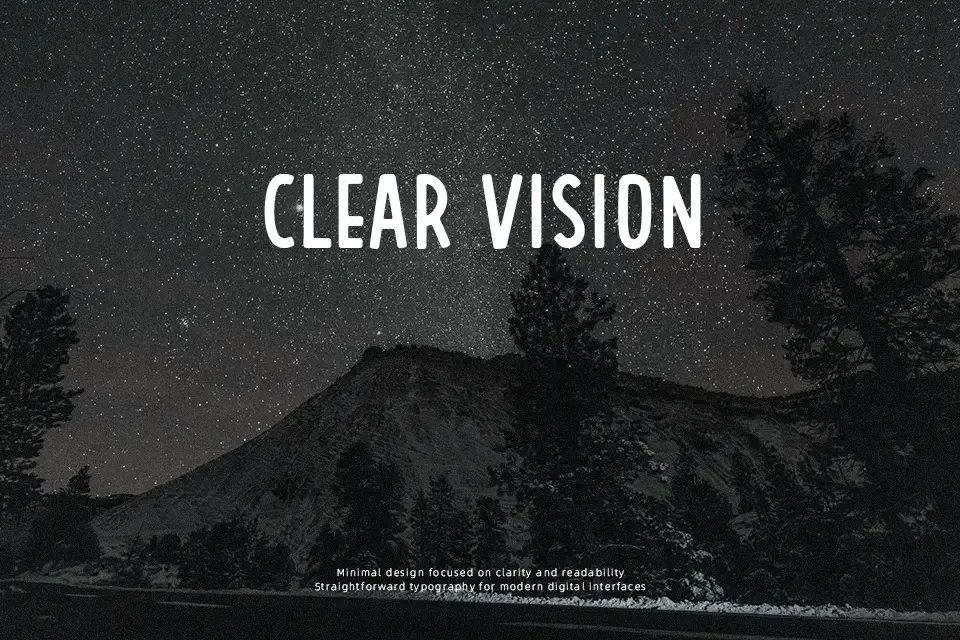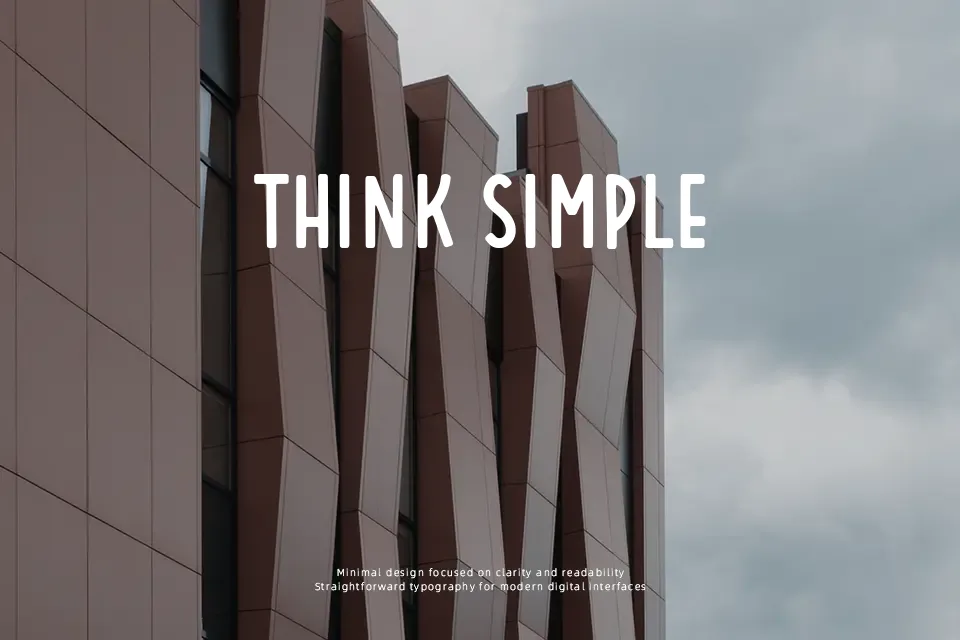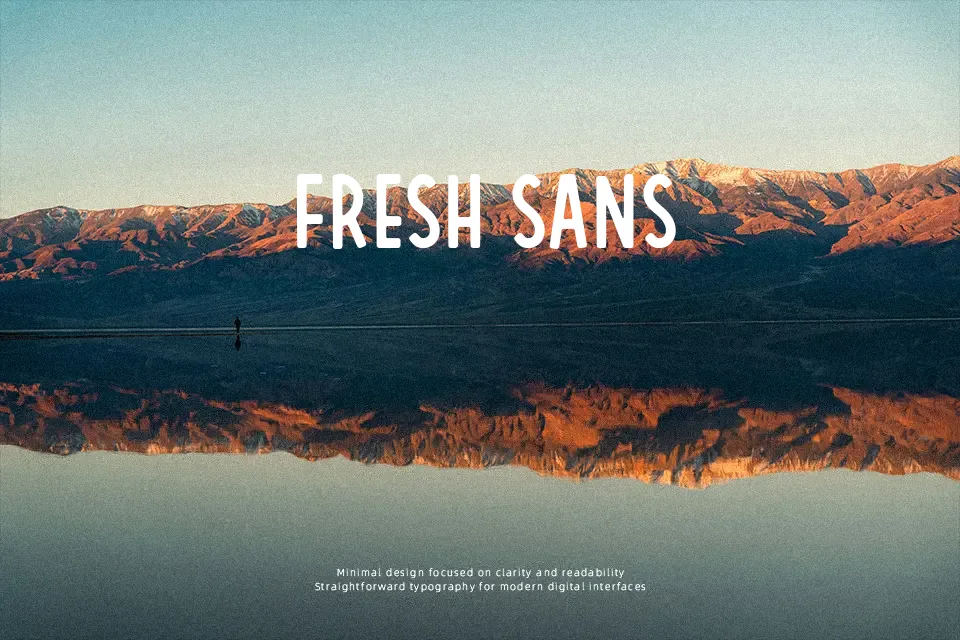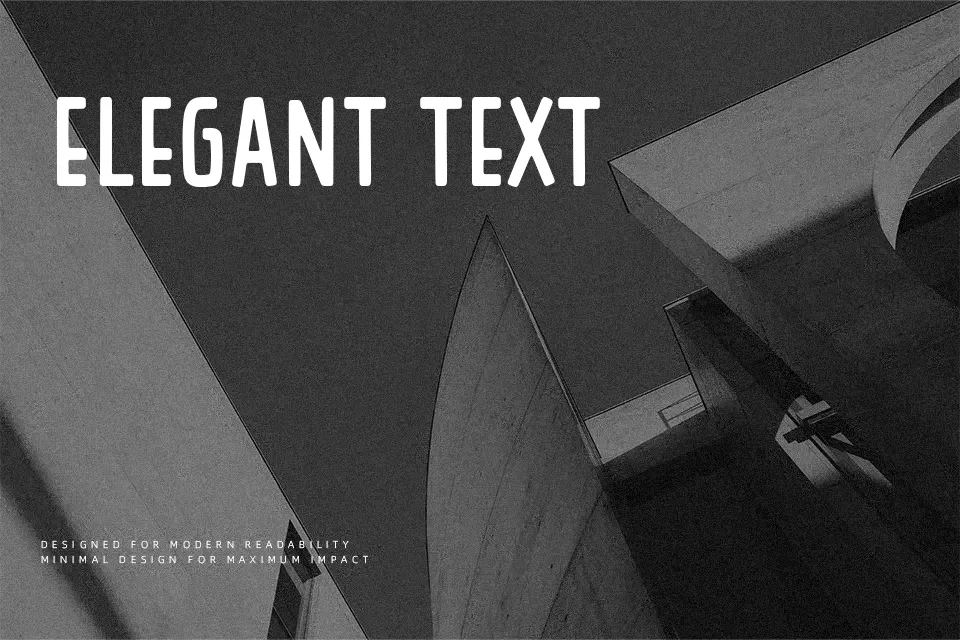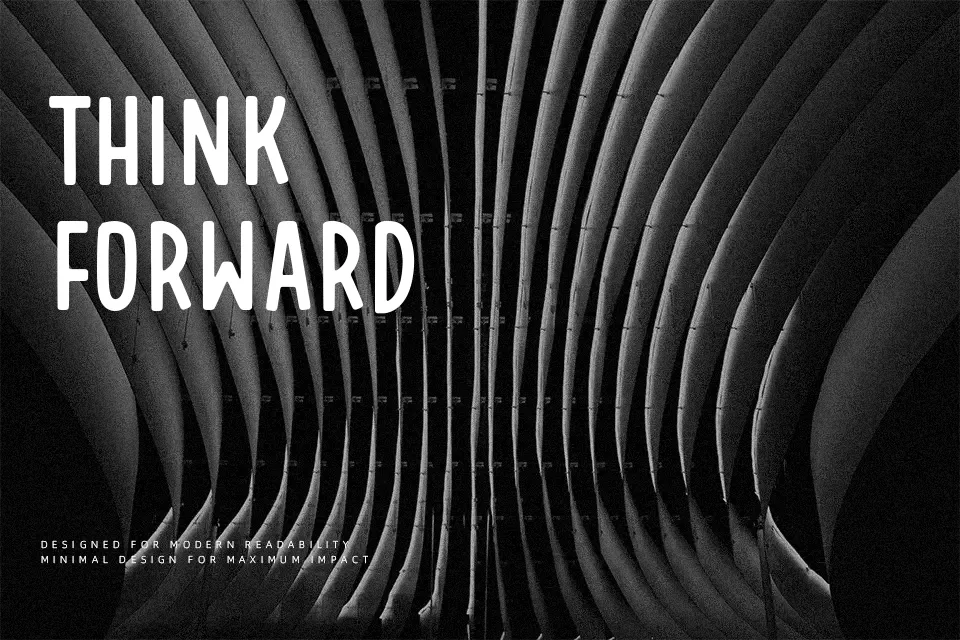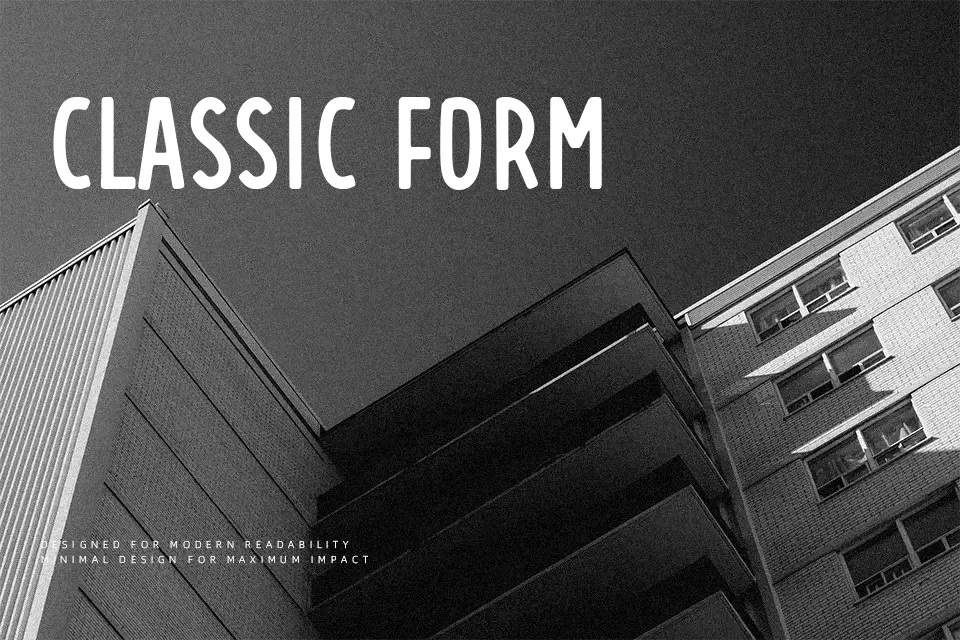
Breaked Font
Designed by Letterative Studio
Breaked Font combines sans serif structure with a brushed, slightly rough texture, so strokes feel drawn rather than mechanically built. Letterforms are moderately bold, with relaxed spacing that keeps text readable at larger sizes but a bit loose for dense paragraphs. Overall it lands in a casual, decorative space—friendly enough for lifestyle brands, cafe menus, music event posters, or social posts that need some personality without looking messy. It works well when you need a few strong words to carry a composition, but it tends to look uncontrolled in long editorial copy, formal corporate layouts, or UI text where clarity and consistency matter more than texture.
short headlines on posters and flyers
informal logo explorations and wordmarks
social media graphics for lifestyle or music content
body text or long paragraphs
strict corporate documents or UI interfaces
projects needing highly polished, geometric typography
Perfect for branding, logo, and music, with a artistic and brush style.